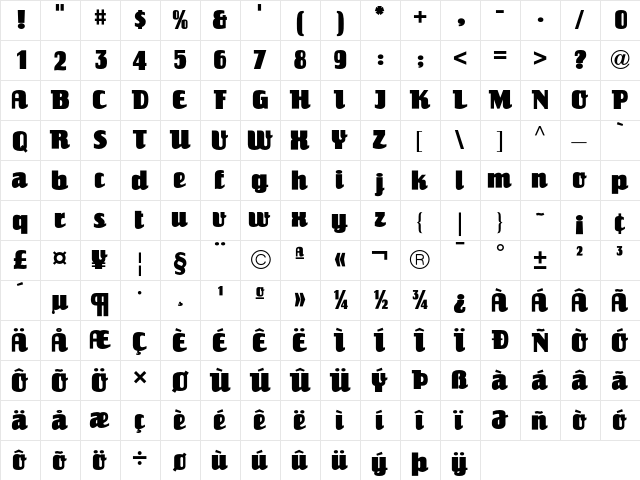
Einhorn ICG
Design Context for Einhorn Typeface
Einhorn is a composed and adaptable typeface that performs quietly and consistently across a wide range of design contexts.